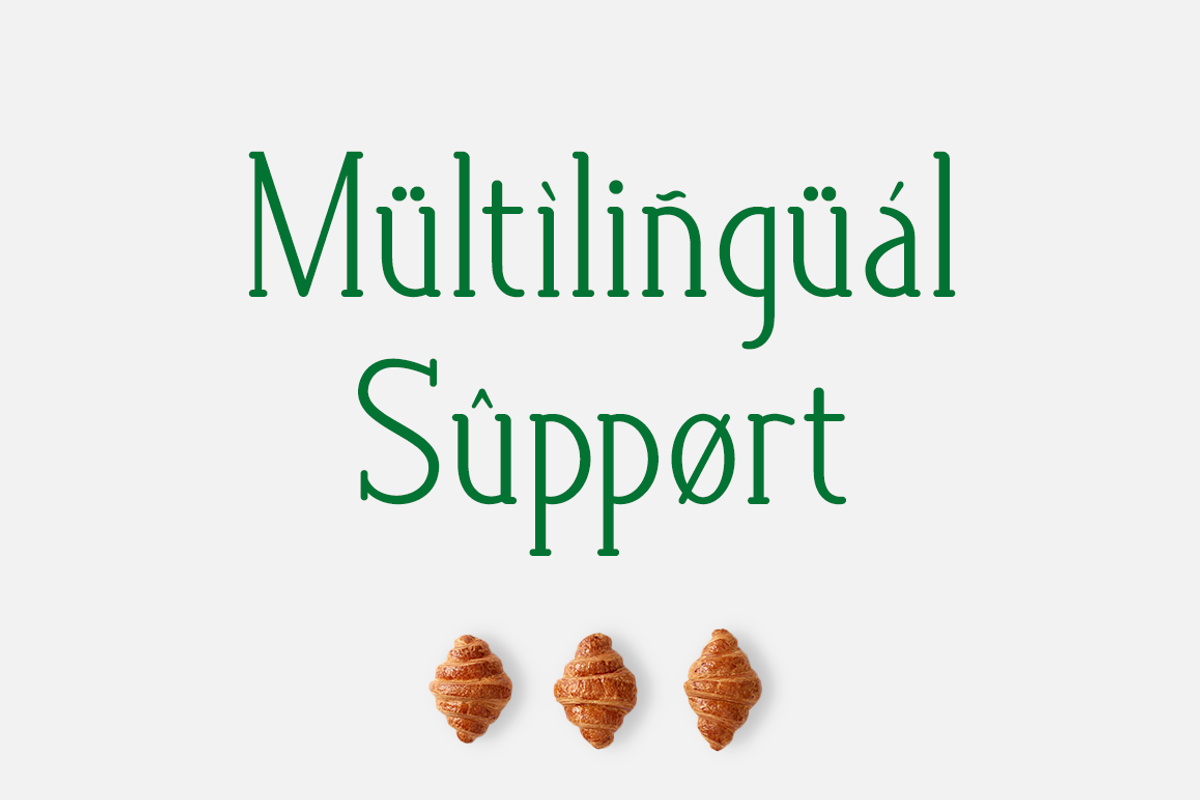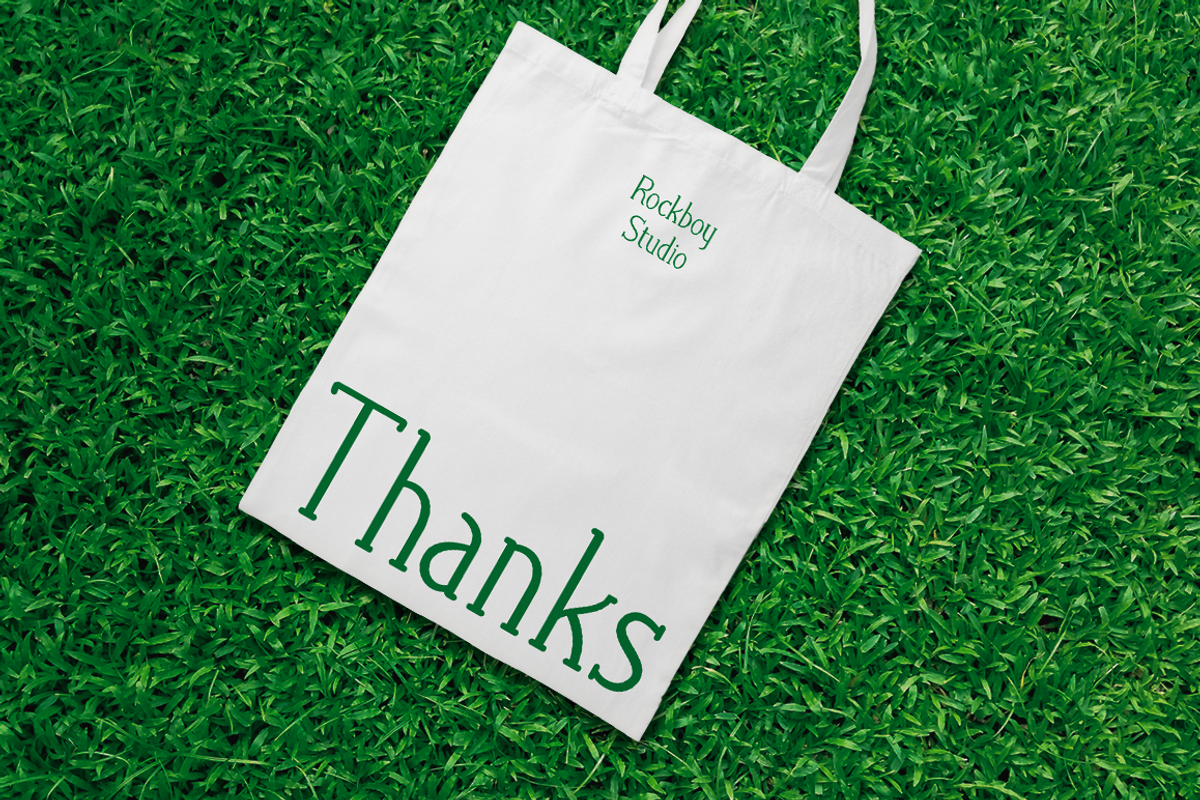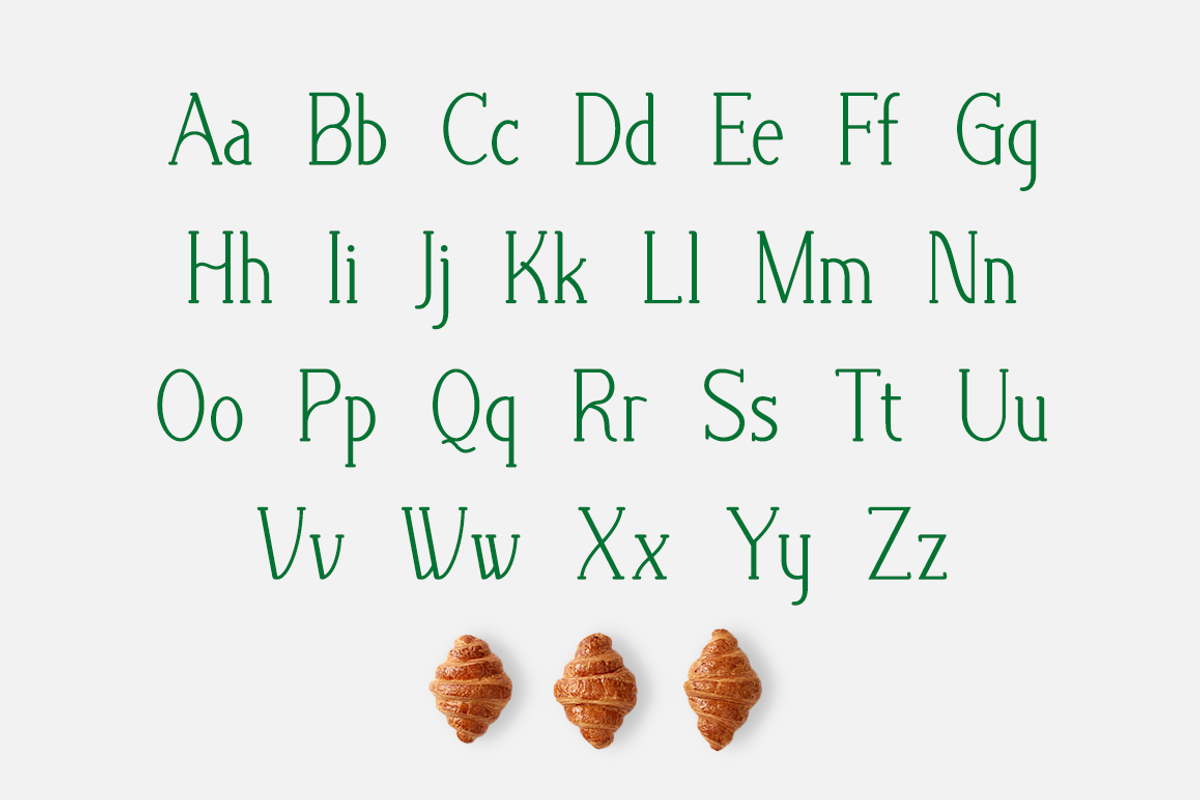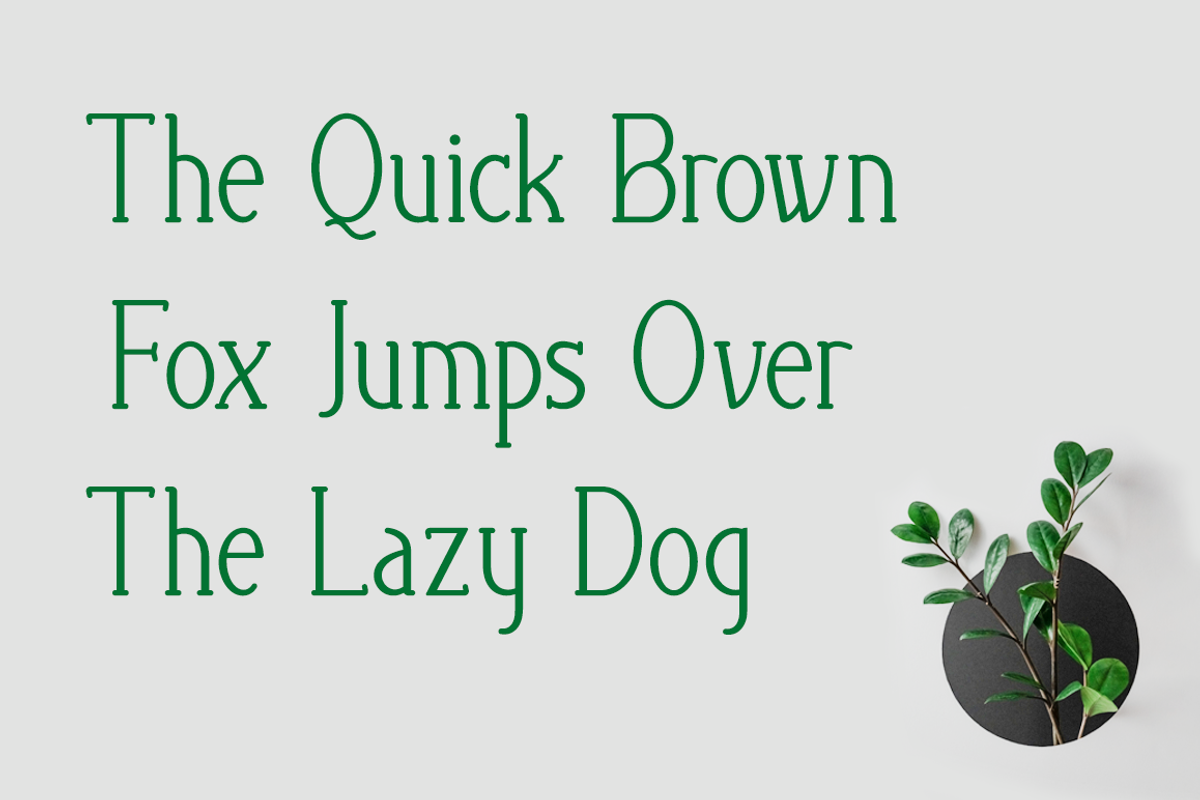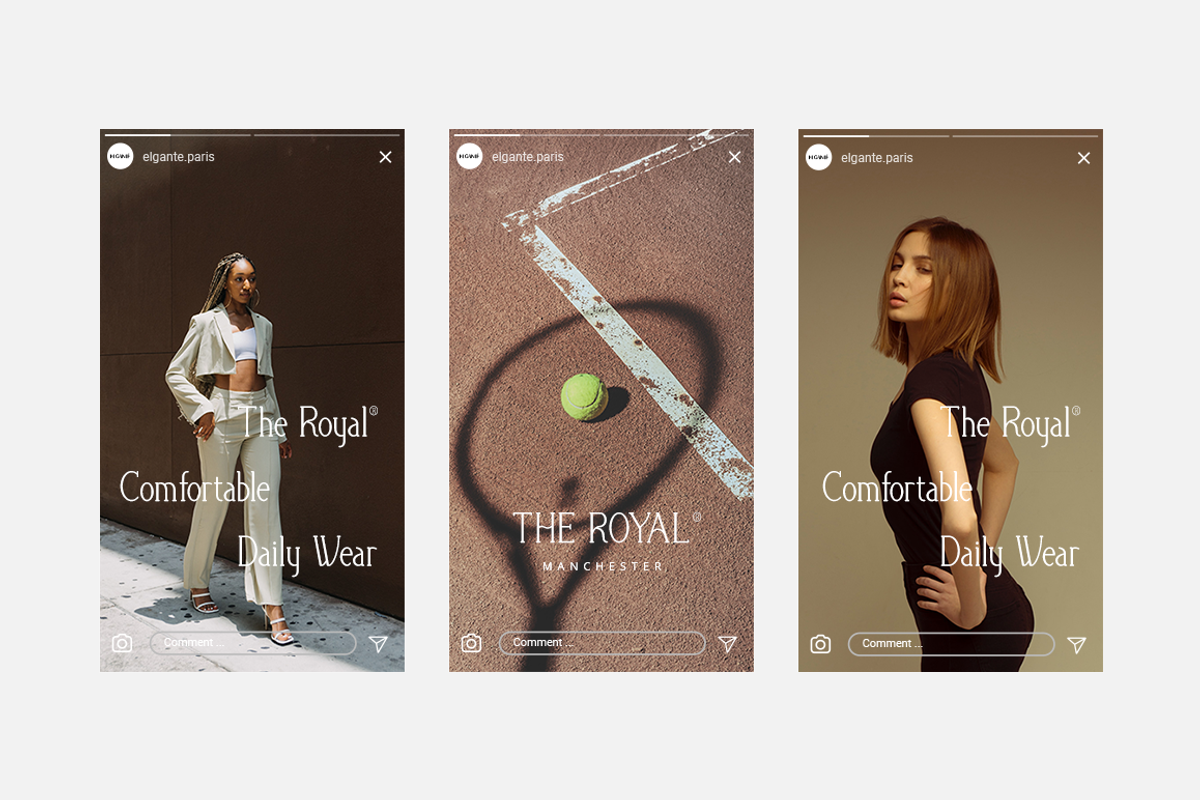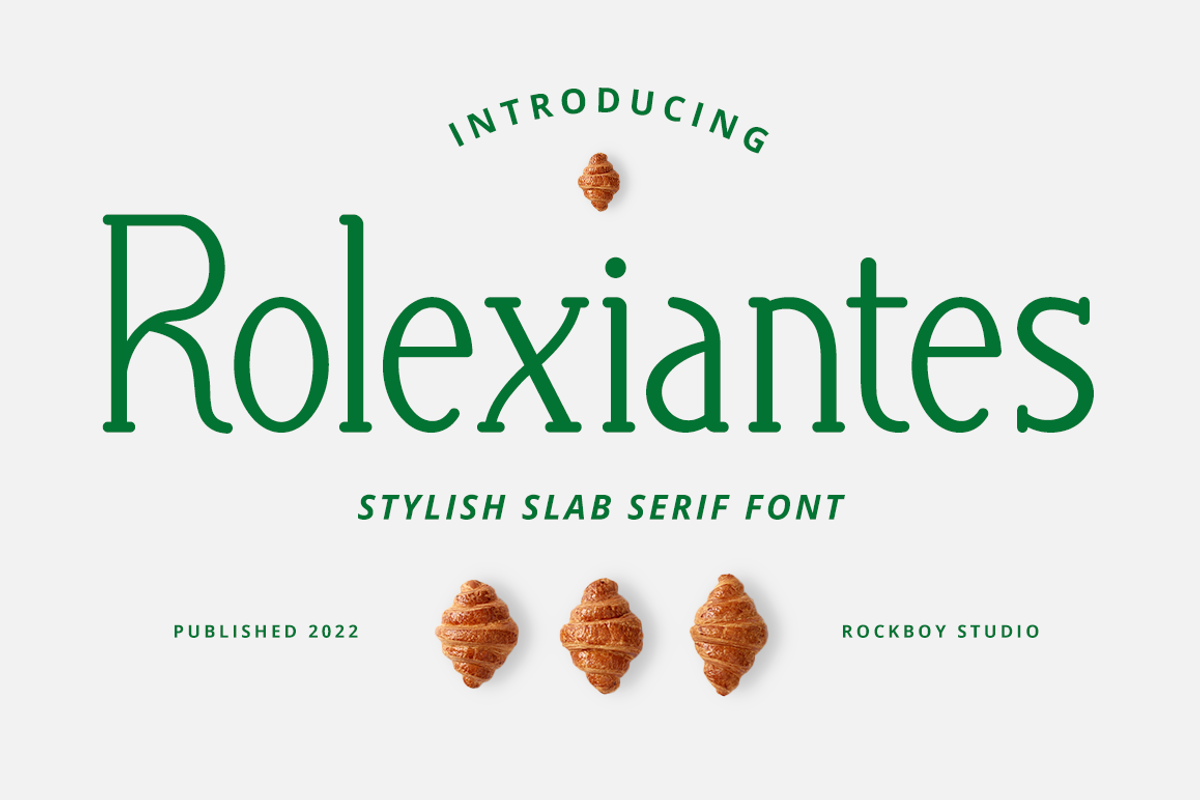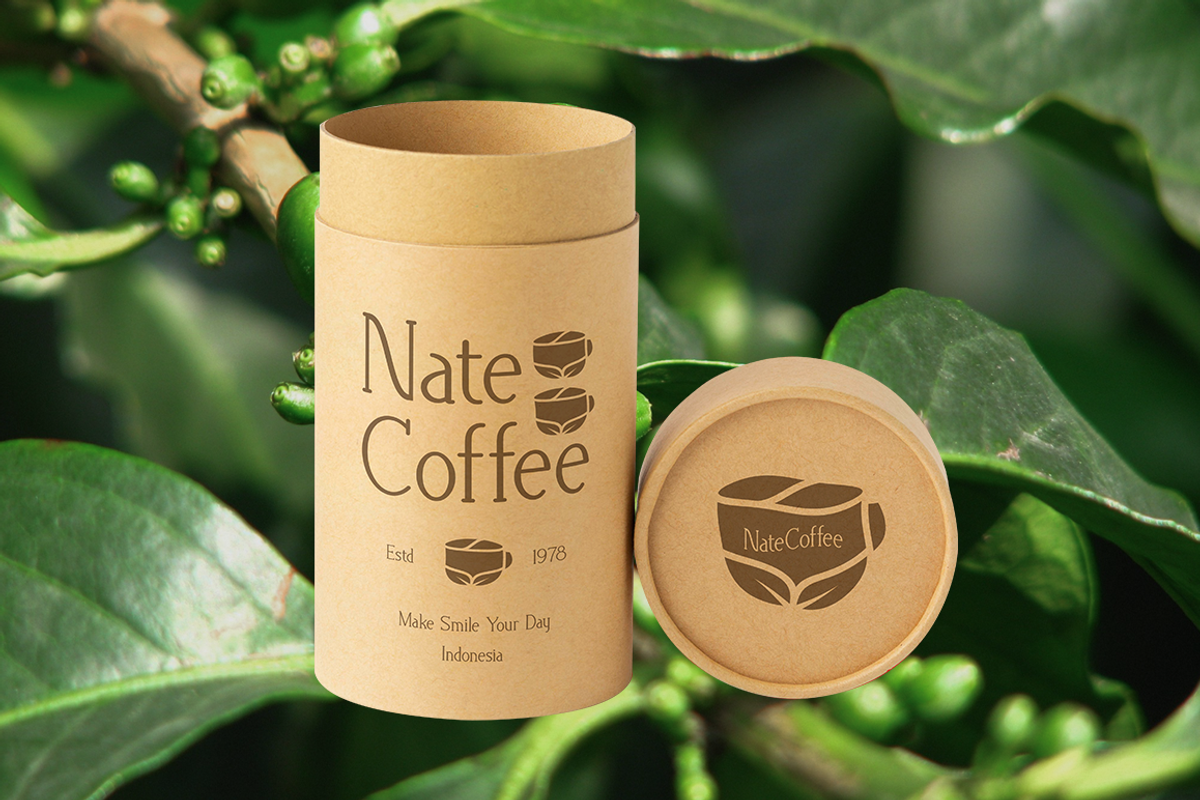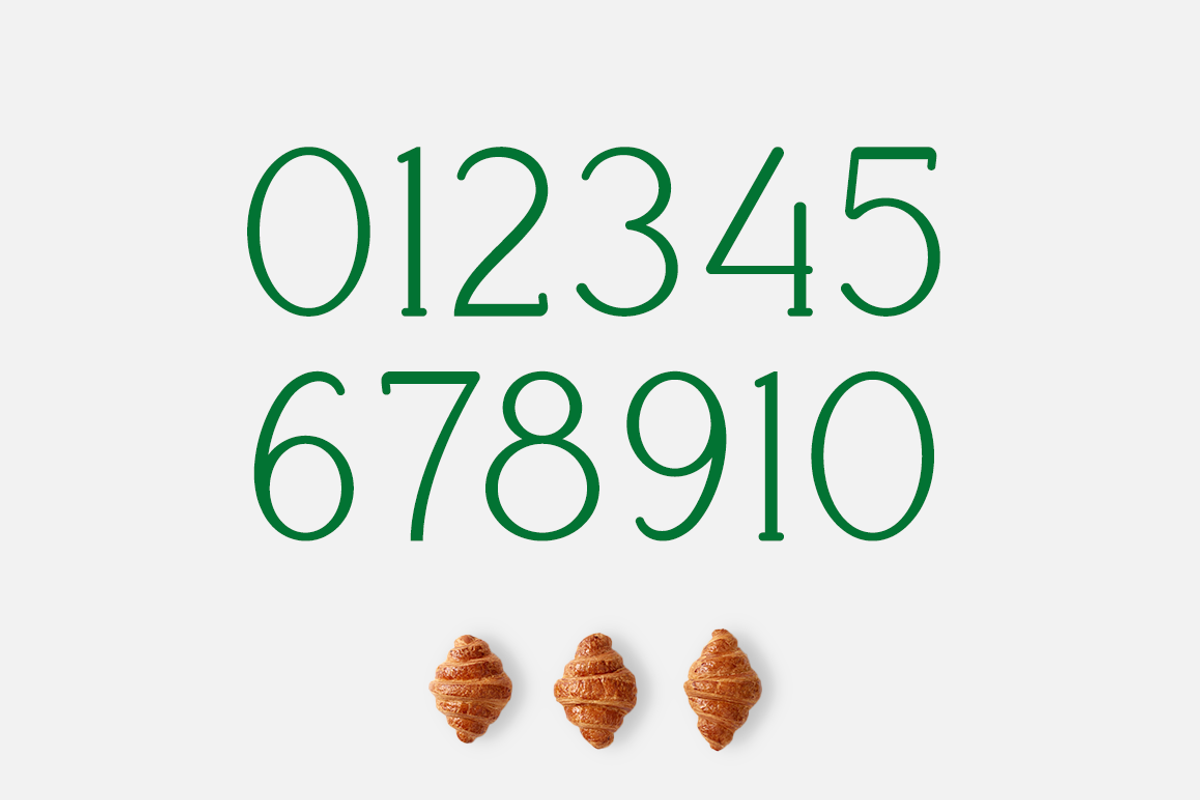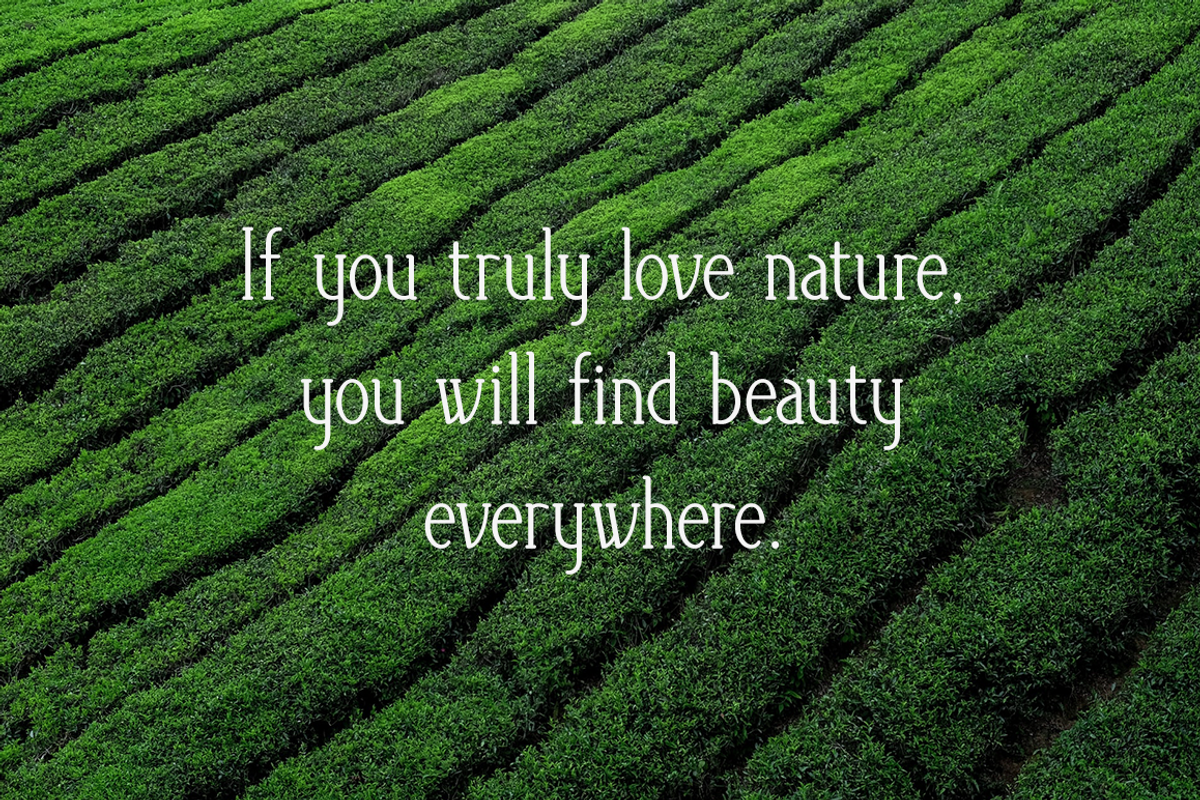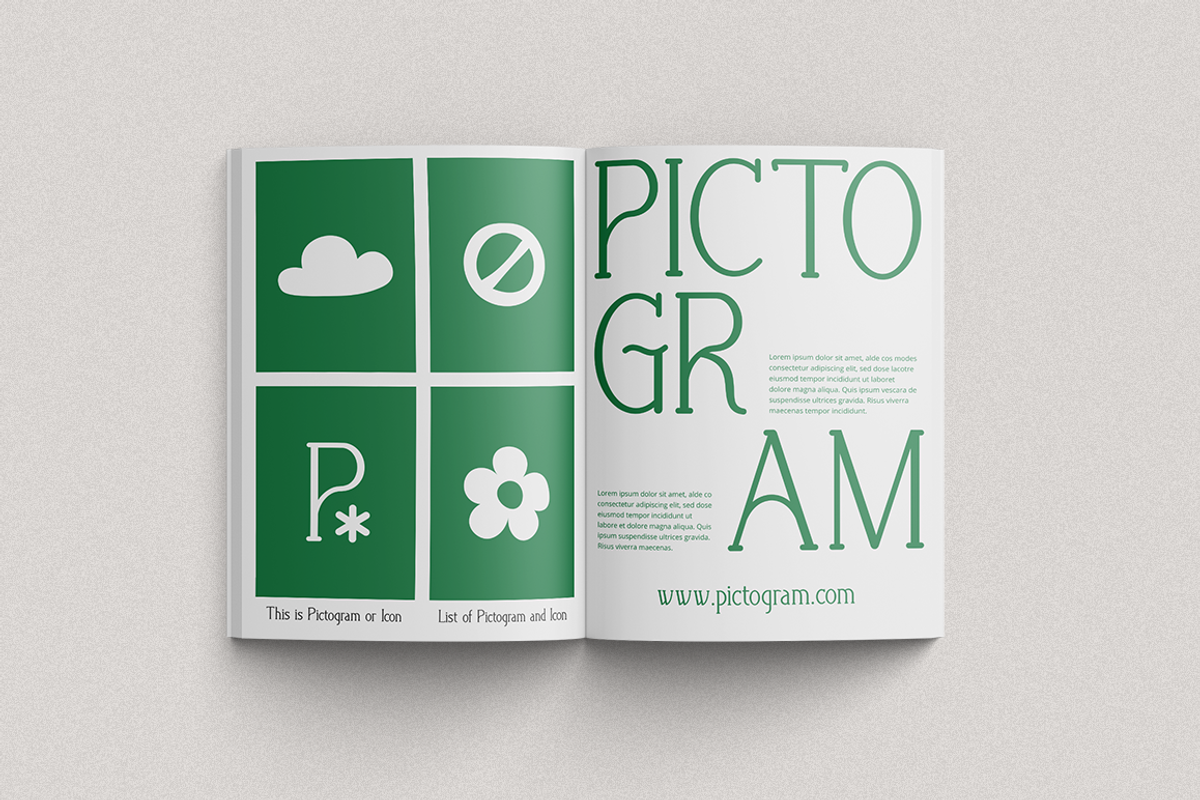
Rolexiantes - Slab Serif Font
Rolexiantes is fresh slab serif font. It can easily be matched to an incredibly large set of projects, so add it to your creative ideas and notice how it makes them stand out!